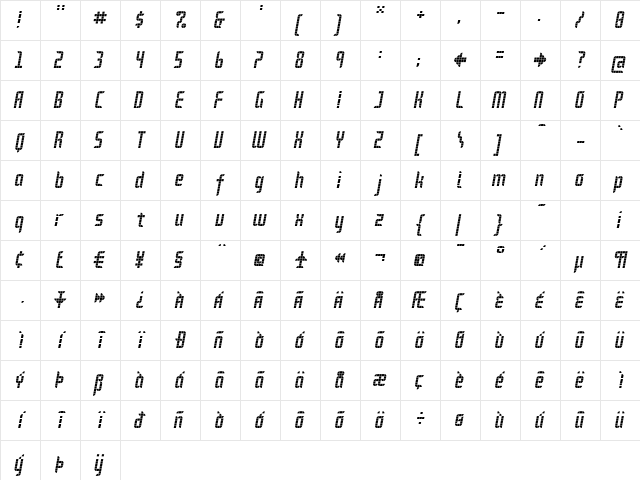
Delay GridItalic
Design Context for Delay Typeface
Delay offers clean, dependable letterforms without strong stylistic allegiance, making it a practical choice for designers who need flexibility. The dynamic lean of this cut emphasises speed and emphasis in any layout.
Pro Tip: Use Delay for emphasis, pull quotes, and subheadings where its slanted energy can add rhythm to the layout.